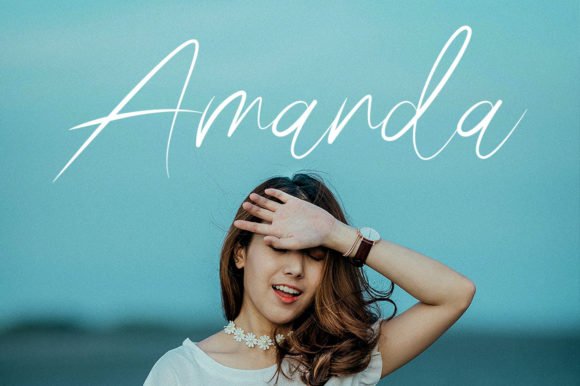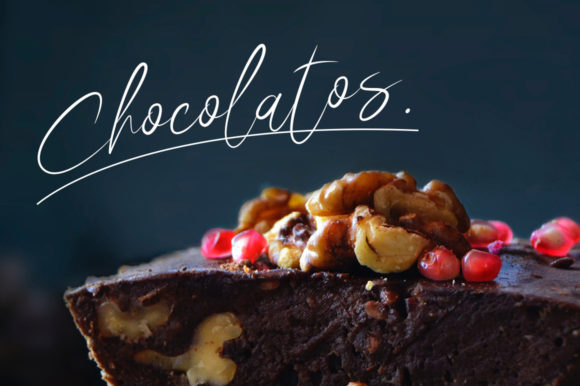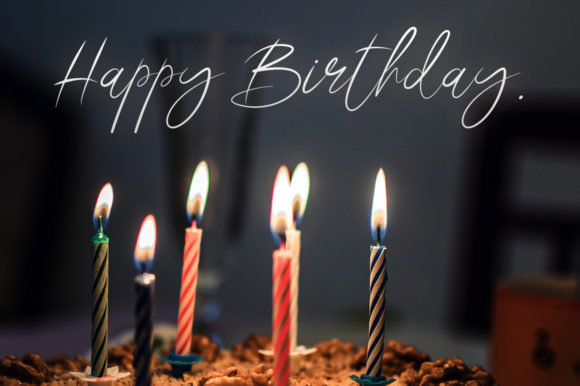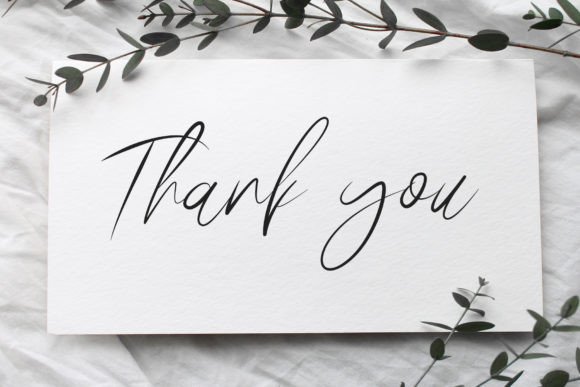
Introduction to Sendaya Font
Have you ever stumbled upon a font that captures the essence of your creative vision? For many designers, this moment is pure magic. It’s the spark that ignites a new project, a fresh idea, or a bold statement. For those who have experienced this thrill, we’re excited to introduce you to the enchanting world of the Sendaya Font. This stunning handwritten font is a true gem, perfect for designers seeking a unique touch for their next creative project.
With its elegant touch and naturally flowing lines, the Sendaya Font is an excellent addition to any designer’s toolkit. Whether you’re working on a personal project or a commercial design, this versatile font is sure to elevate your work to new heights. Its high-quality design and transparent background make it a valuable resource for designers who demand the best.
Key Features of Sendaya Font
- High-quality font design with a unique, artistic style, making it perfect for creative projects that require a distinctive touch.
- Features a transparent background, allowing for easy layering and manipulation in design projects.
- Designed with high resolution in mind, making it suitable for print and digital applications.
- Available in various font sizes, from small to large, allowing for versatility in design projects.
- Unique characteristics include intricate details and a mix of modern and vintage elements, making it a standout design resource.
Honest Review: Sendaya Font
As a designer, I’m always on the lookout for high-quality design resources to elevate my creative projects. Recently, I had the chance to try out the Sendaya Font, and I must say, it’s been a game-changer.
- ✨ Beautifully crafted characters: The Sendaya Font boasts intricate details and smooth lines that make it perfect for a wide range of design applications.
- ✨ Versatile: This font is incredibly versatile and can be used for both digital and print projects, making it a valuable addition to my design arsenal.
- ⚠️ Limited language support: Unfortunately, the Sendaya Font only supports a limited range of languages, which might be a hindrance for designers working on multilingual projects.
- ⚠️ No transparent background option: While the font itself is beautifully designed, it would be great to see an option for a transparent background to make it even more versatile.
Overall, I’m thoroughly impressed with the Sendaya Font. Its high-quality design and versatility make it a valuable resource for any designer. If you’re looking for a new font to elevate your creative projects, I’d definitely recommend giving the Sendaya Font a try.
Tips for Getting the Most Out of Sendaya Font
Use the Sendaya Font with a transparent background to create visually appealing designs. Experiment with different font sizes and colors to enhance the design.
The Sendaya Font is ideal for creative projects, business presentations, and marketing materials. It’s a high-quality design resource that can be used across various platforms.